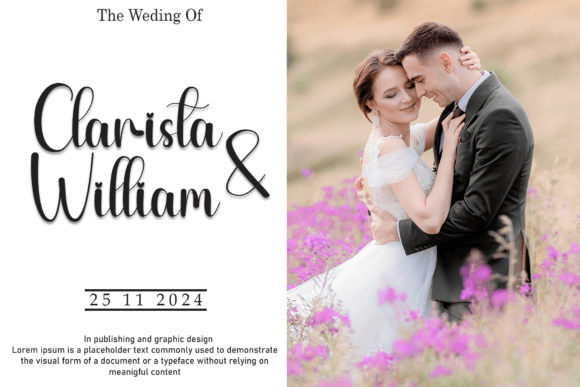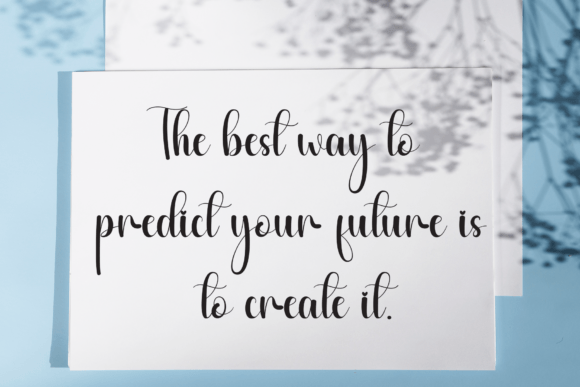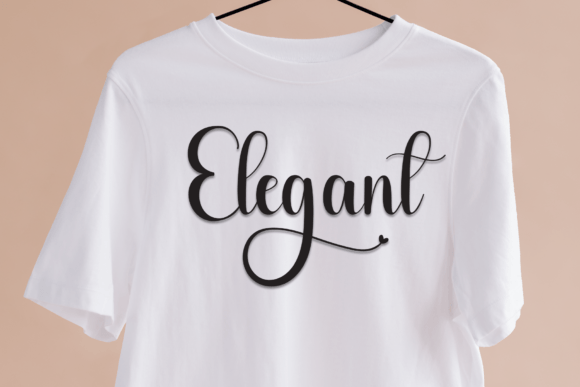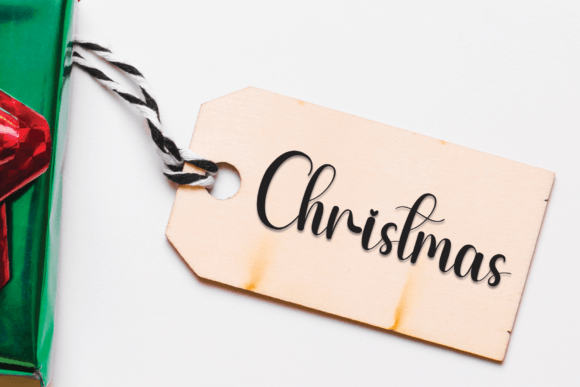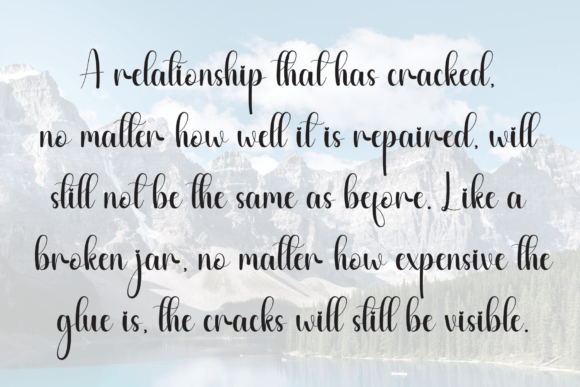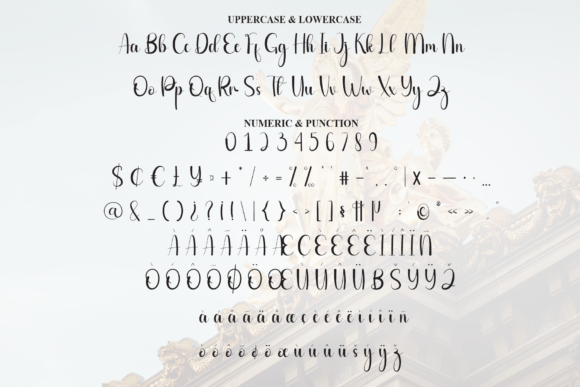
Introducing Angela Font: Elevate Your Designs with Elegance and Charm
Are you looking for a font that adds a touch of sophistication and whimsy to your designs? Look no further than Angela Font, a beautiful handwritten script font that is sure to captivate your audience. With its flowing, graceful curves, Angela Font is perfect for designers and crafters seeking to add a personal and elegant touch to their projects.
The Characteristics of Angela Font
Angela Font is a stylish handwritten script font that boasts a range of characteristics that make it ideal for a variety of design applications. Its delicate strokes bring warmth and creativity to your projects, making it perfect for:
- Invitations: Whether you’re designing wedding invitations, birthday party invites, or baby shower announcements, Angela Font adds a touch of elegance and sophistication.
- Logos: Create a lasting impression with a custom logo that showcases your brand’s personality and style.
- Branding: Use Angela Font to develop a consistent visual identity for your brand, adding a personal touch to your marketing materials.
Why Choose Angela Font?
With so many fonts available, why choose Angela Font? Here are just a few reasons why designers and crafters love this beautiful script font:
- Elegant and charming: Angela Font exudes elegance and charm, making it perfect for designs that require a touch of sophistication.
- Versatile: Use Angela Font for a wide range of design applications, from invitations and logos to branding and packaging.
- Easy to read: Despite its delicate strokes, Angela Font is easy to read, making it perfect for body text and headlines.
- Unique: Angela Font has a unique personality that sets it apart from other script fonts, ensuring your designs stand out from the crowd.
Tips for Using Angela Font
To get the most out of Angela Font, here are a few tips to keep in mind:
- Pair with contrasting fonts: Combine Angela Font with contrasting fonts to create visual interest and hierarchy in your designs.
- Use for headlines and titles: Angela Font is perfect for headlines and titles, adding a touch of elegance and sophistication to your designs.
- Experiment with colors: Try pairing Angela Font with different colors to add depth and personality to your designs.
Who is Angela Font for?
Angela Font is perfect for a range of designers and crafters, including:
- Graphic designers: Add a touch of elegance and sophistication to your designs with Angela Font.
- Stationery designers: Create beautiful invitations, greeting cards, and other stationery with Angela Font.
- Crafters: Use Angela Font to add a personal touch to your craft projects, from scrapbooking to DIY home decor.
- Small business owners: Develop a consistent visual identity for your brand with Angela Font, adding a touch of professionalism and sophistication.
Angela Font is a beautiful handwritten script font that is sure to elevate your designs with its elegance and charm. With its delicate strokes, flowing curves, and versatile design, Angela Font is perfect for a wide range of design applications. Whether you’re a graphic designer, stationery designer, crafter, or small business owner, Angela Font is a great choice for adding a personal and sophisticated touch to your projects.